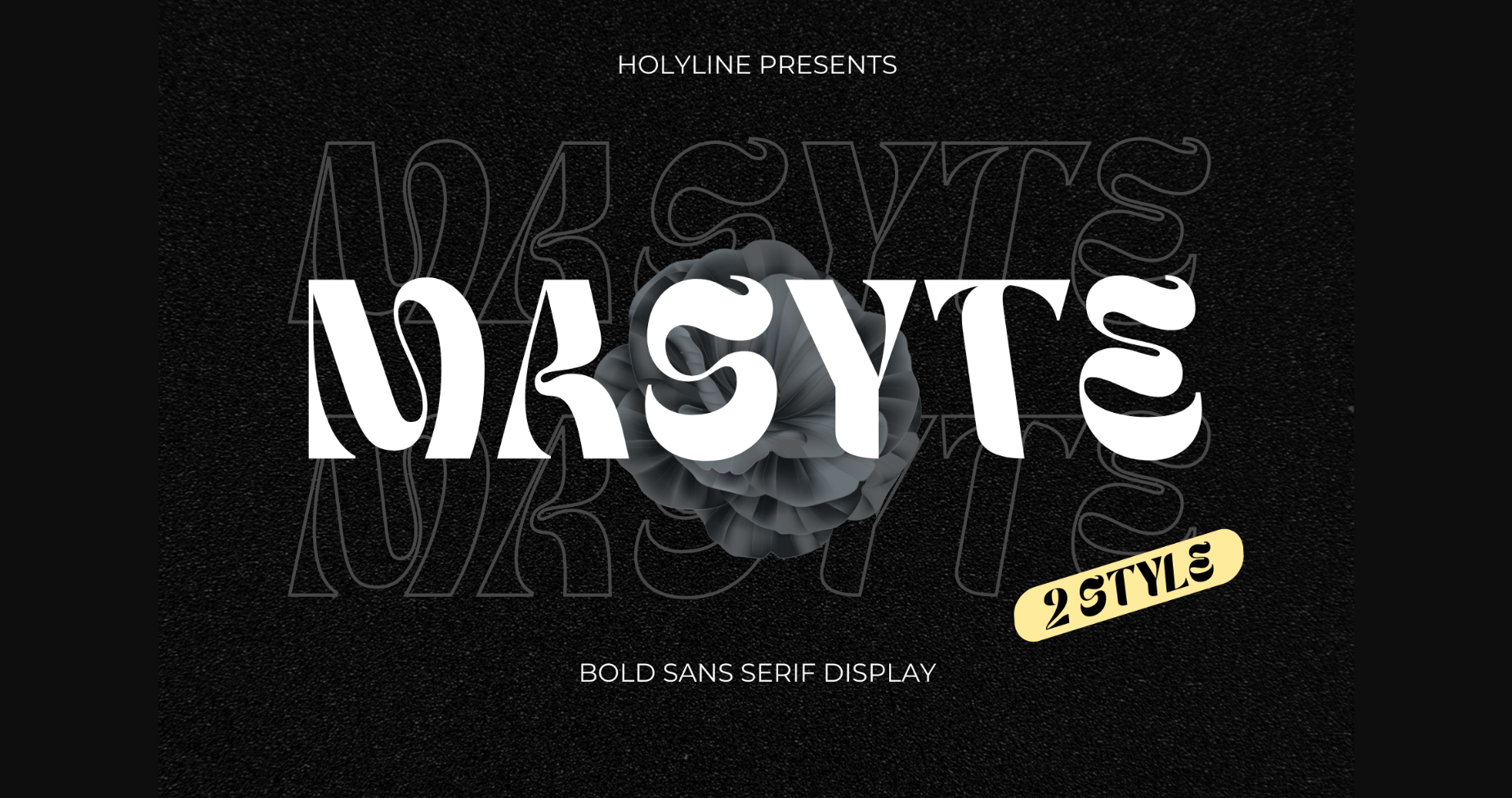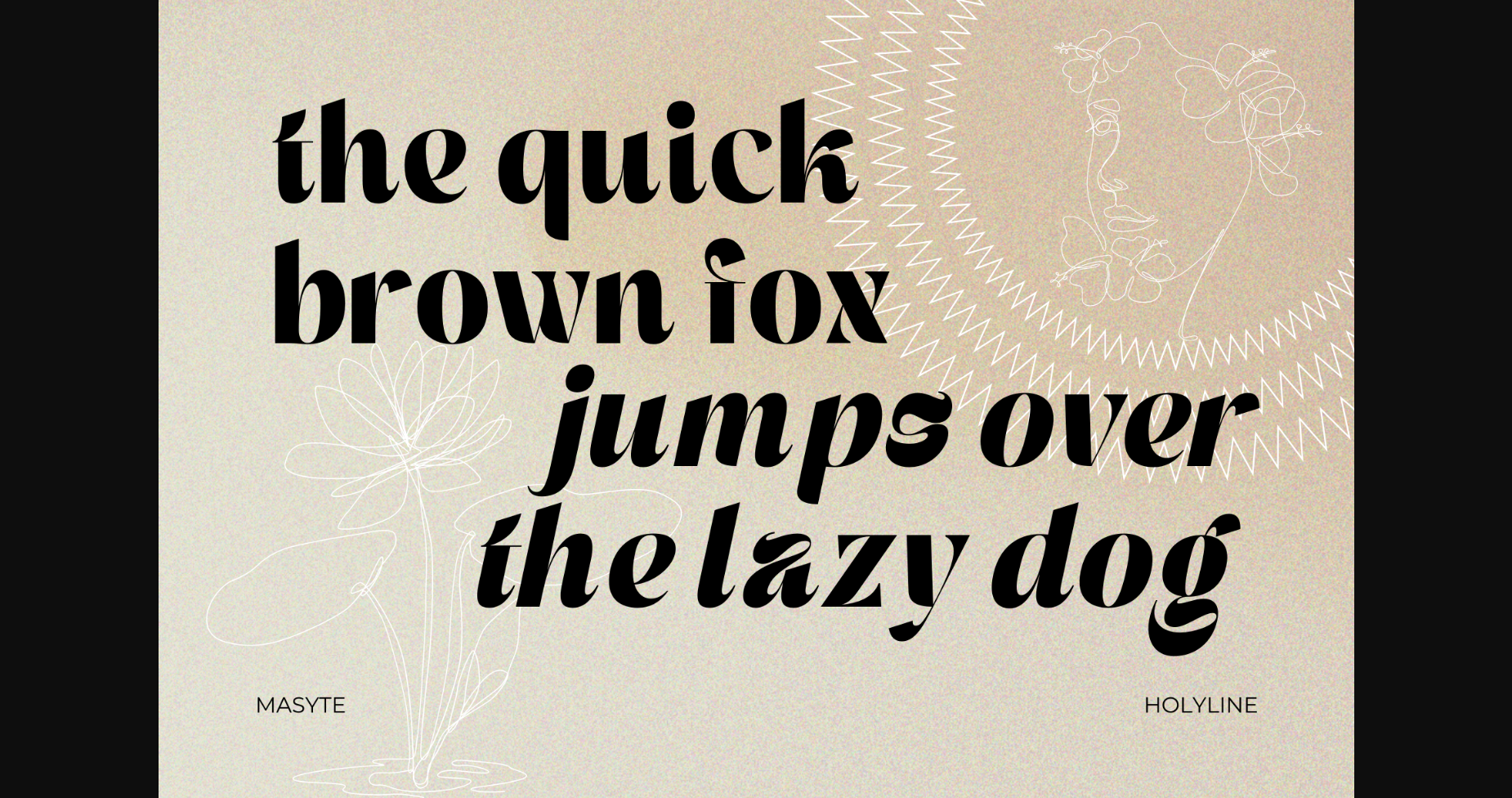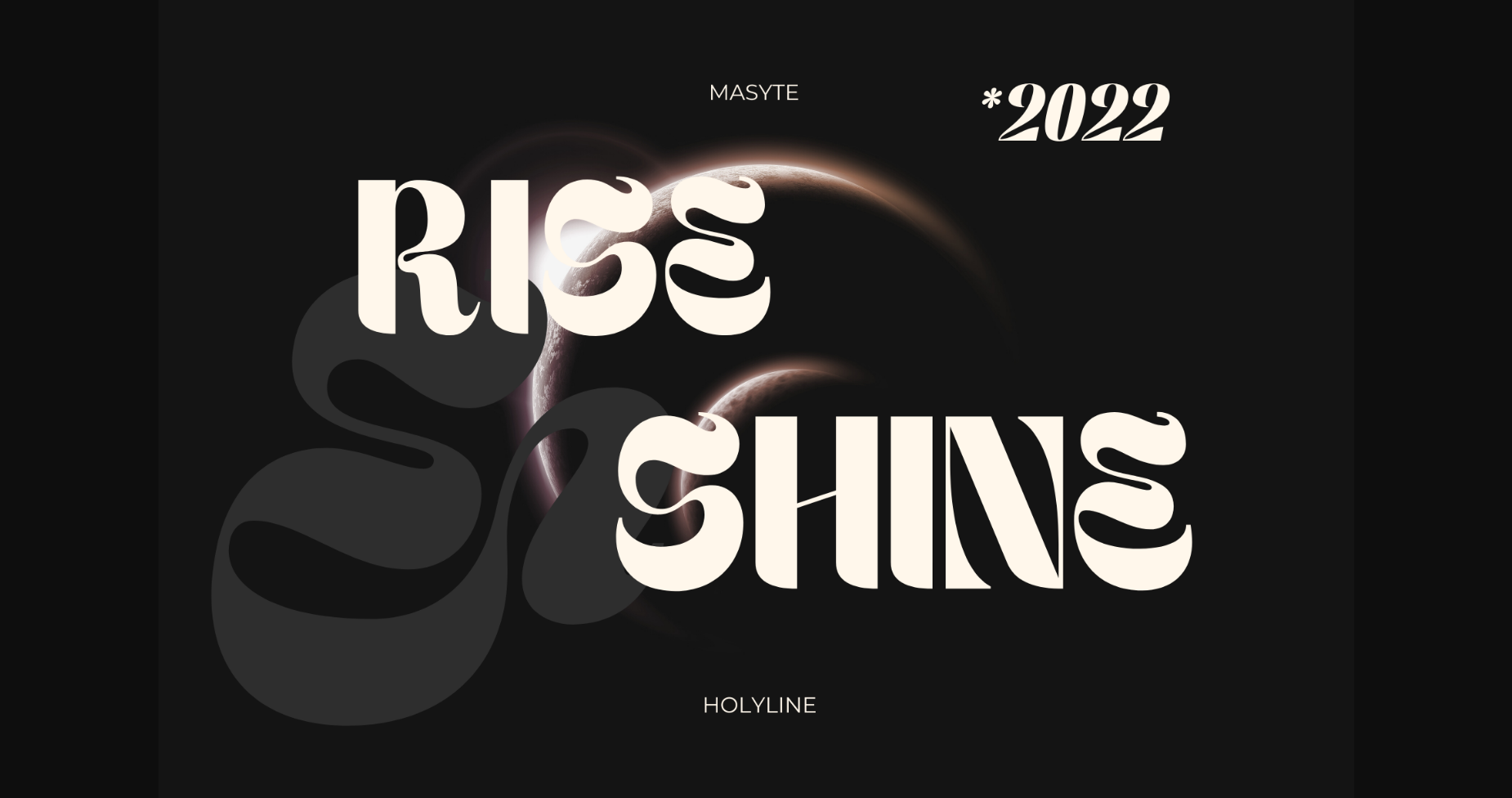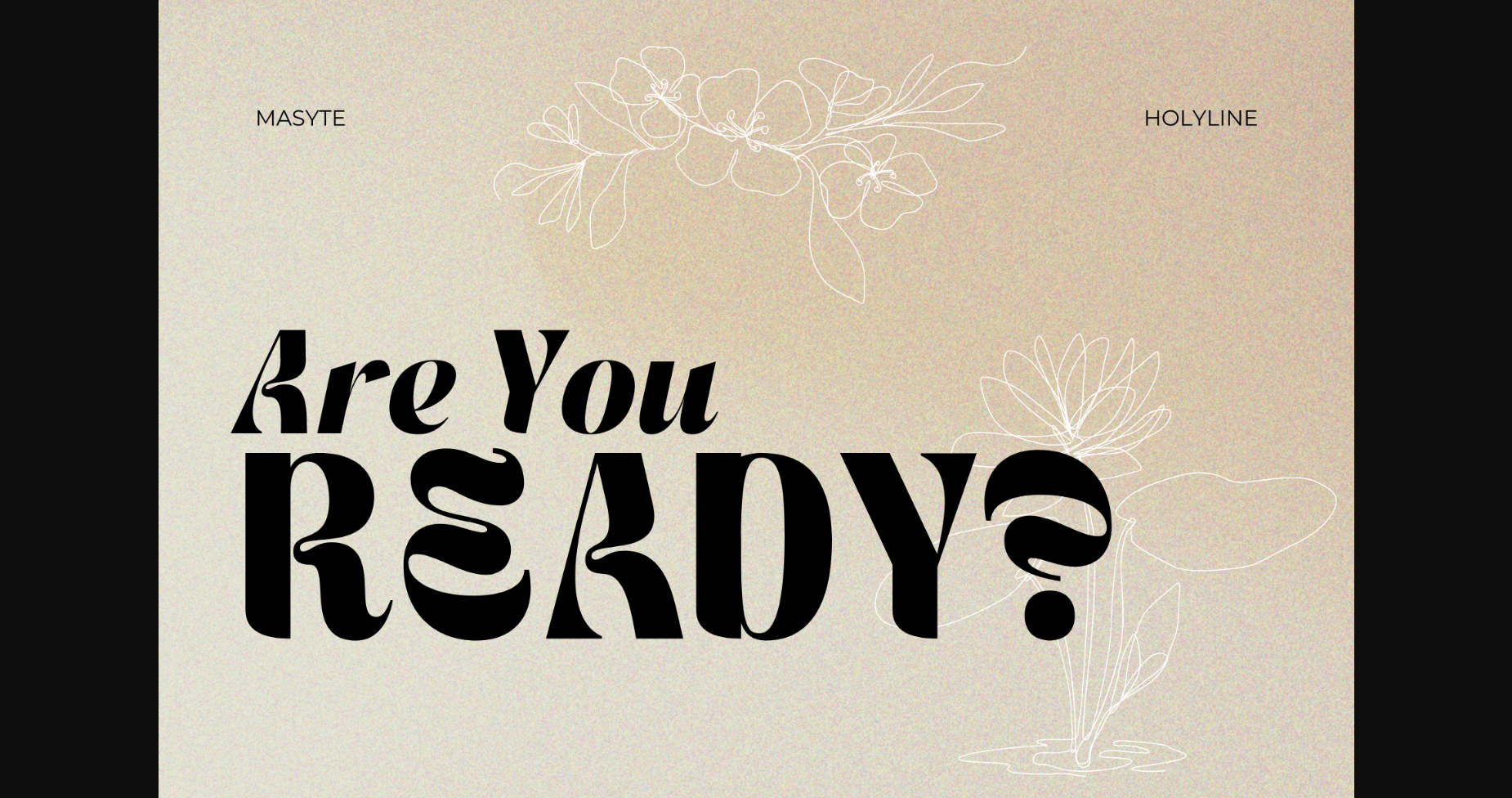
About Masyte Font
This exquisite and fancy sans-serif font is a luxurious and elegant design. Masyte’s intricate, decorative details and ornate flourishes create a sense of opulence and grandeur that is perfect for adding a touch of glamour to your branding or typography. With its refined and sophisticated style, this font is sure to make a statement and leave a lasting impression.